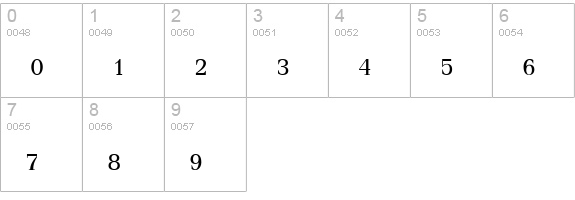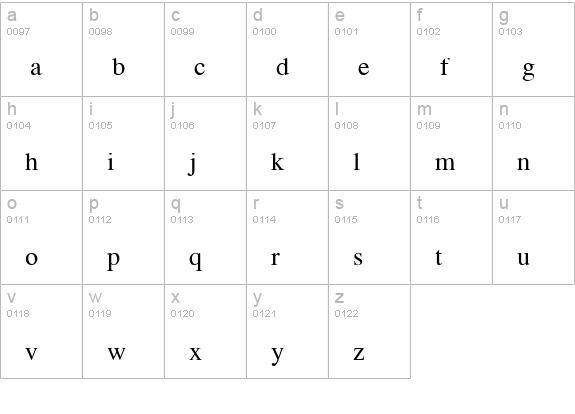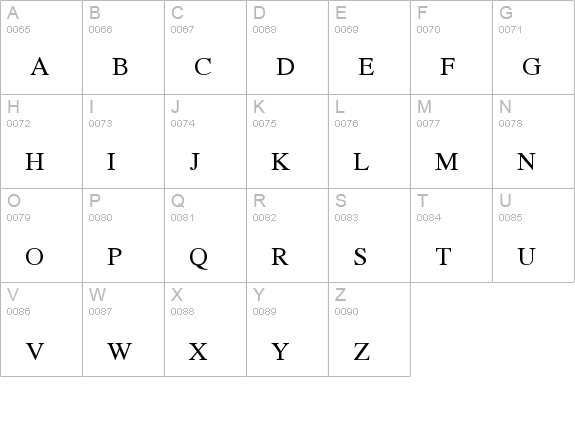
KodchiangUPC Font Details
KodchiangUPC is a beautifully crafted font that exudes elegance and sophistication. Its sleek lines and modern design make it perfect for a wide range of projects, from branding to print materials. This versatile font is ideal for adding a touch of class to any design. The best part about KodchiangUPC font is that it is completely free to download. You can easily access this stunning font at FontsMarket.com, where you can find a wide selection of high-quality fonts for all your creative needs. Don't miss out on the opportunity to enhance your designs with this amazing font that will surely make a statement. Download KodchiangUPC font today and elevate your projects to the next level.